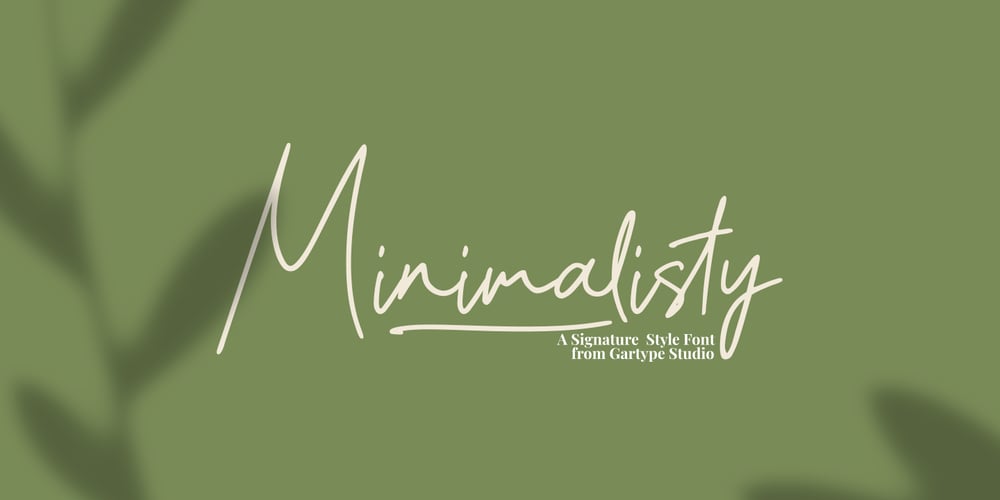
Minimalisty Font Family was designed by Gumilang Anggara Ruslan and published by Gartype Studio. Minimalisty contains 2 styles and family package options. Inspired by Minimalist style then Minimalisty is born! Minimalisty is a stylish signature font with a minimalist look.This font is very suitable for signatures, logos, and making your favourite social media posts.